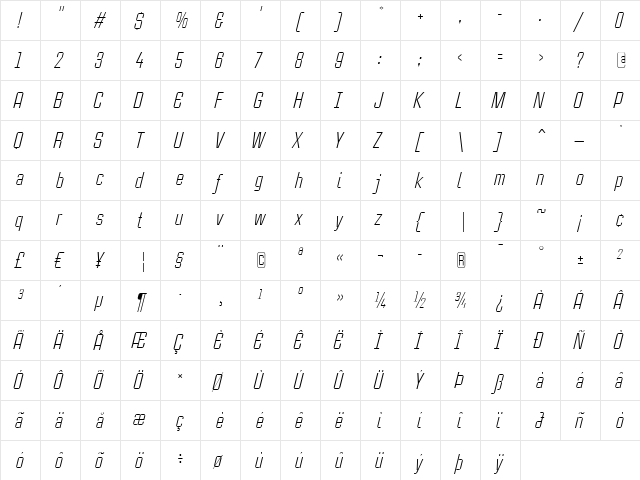
CaseStudyNoOne LT Light Italic Font Preview
| Style | Light Italic |
| Foundry | Linotype Library GmbH or its affiliated companies |
Design Context for CaseStudyNoOne LT Typeface
CaseStudyNoOne LT offers clean, dependable letterforms without strong stylistic allegiance, making it a practical choice for designers who need flexibility. The dynamic lean of this cut emphasises speed and emphasis in any layout. The delicate stroke weight brings airiness and refinement to layouts.